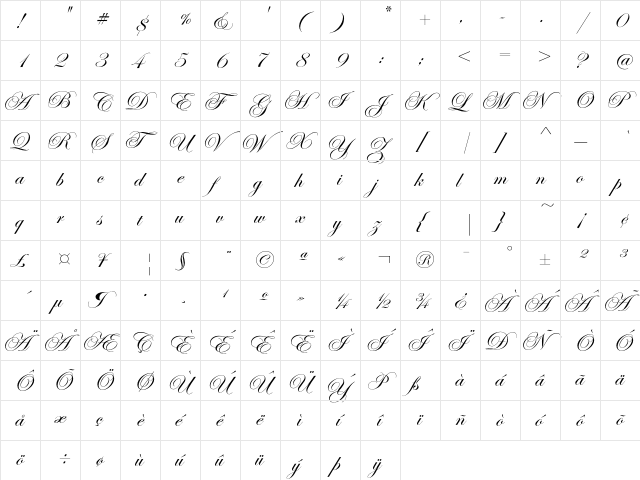
EdwardianScriptEF Regular
Design Context for EdwardianScriptEF Typeface
EdwardianScriptEF flows with the natural rhythm of handwritten lettering, making it ideal for designs that call for warmth and personal expression.
Font Pairing: Combine EdwardianScriptEF with a simple geometric sans for maximum contrast — the tension between flowing curves and clean structure is a classic typographic pairing.
Pro Tip: Pair EdwardianScriptEF with a clean sans-serif for supporting text. The contrast between fluid script and geometric structure creates an elegant typographic hierarchy.